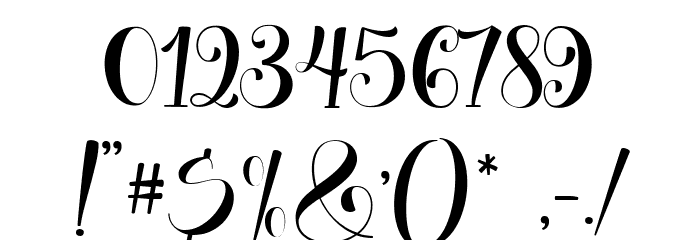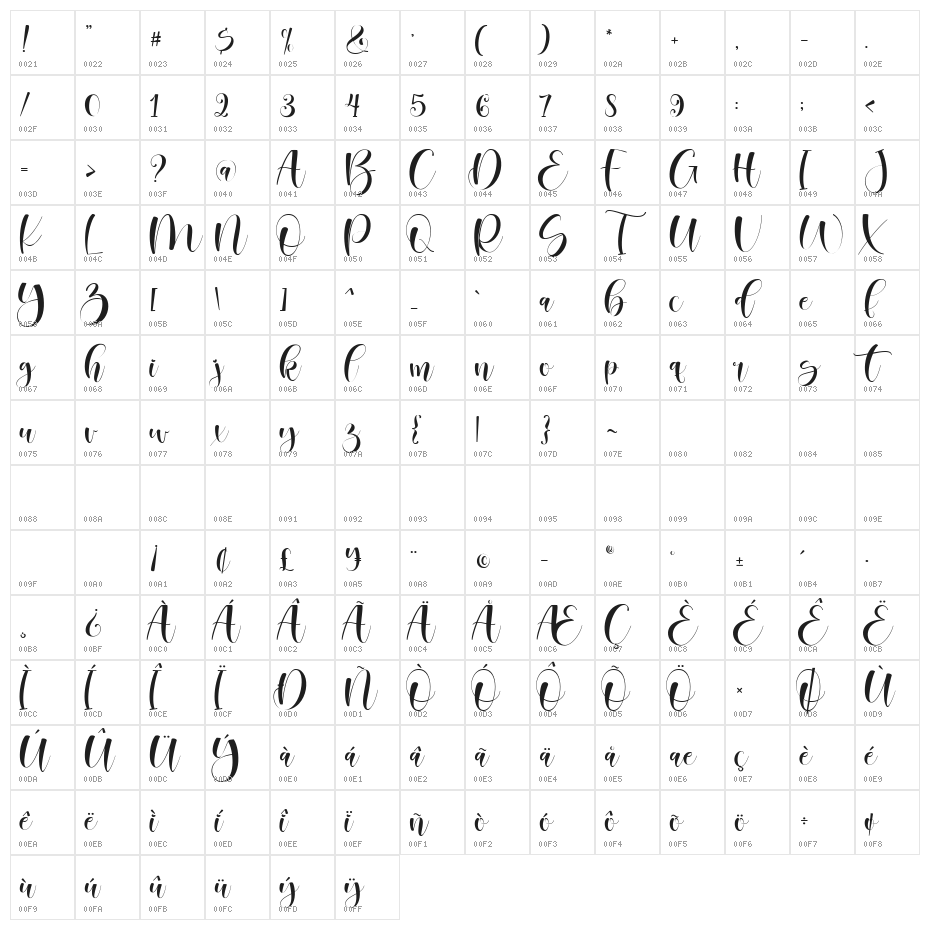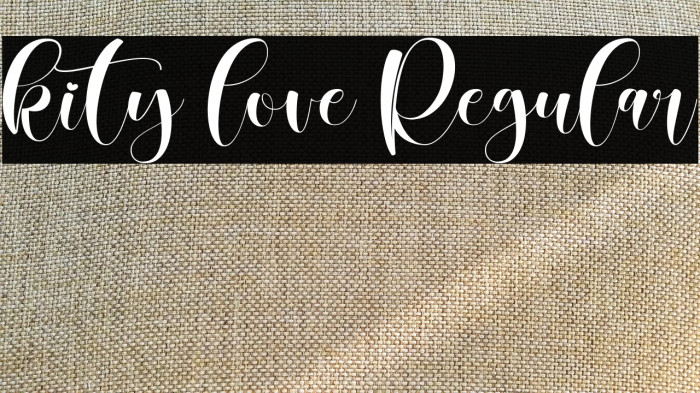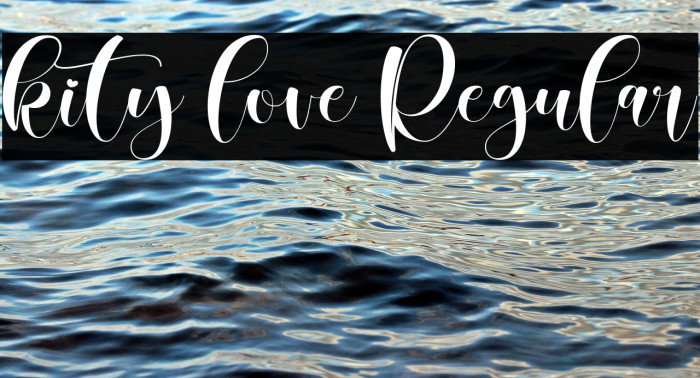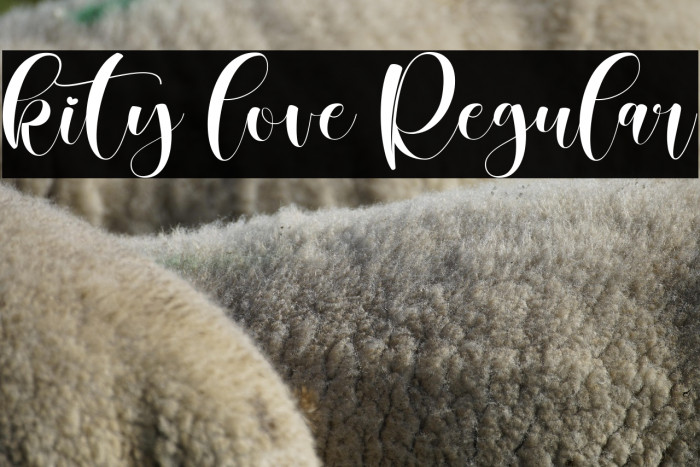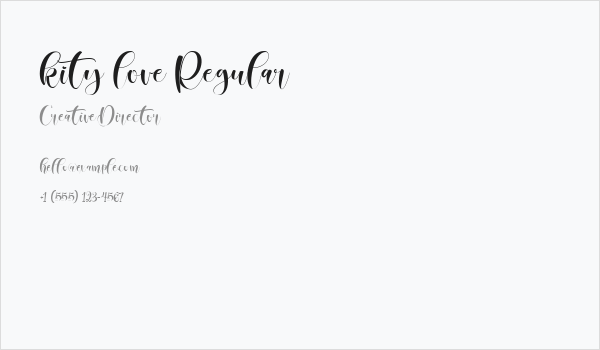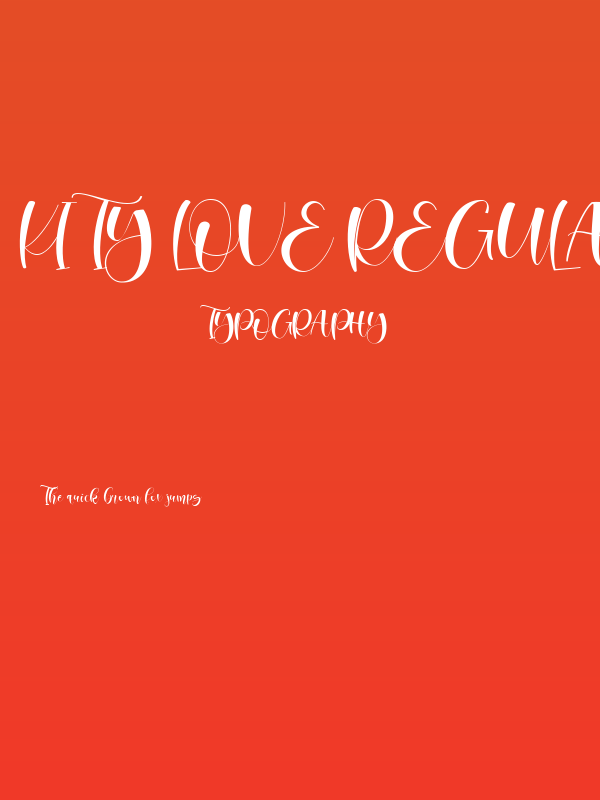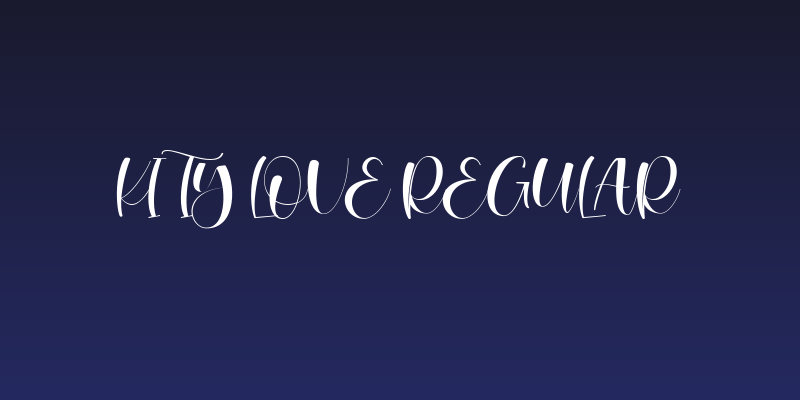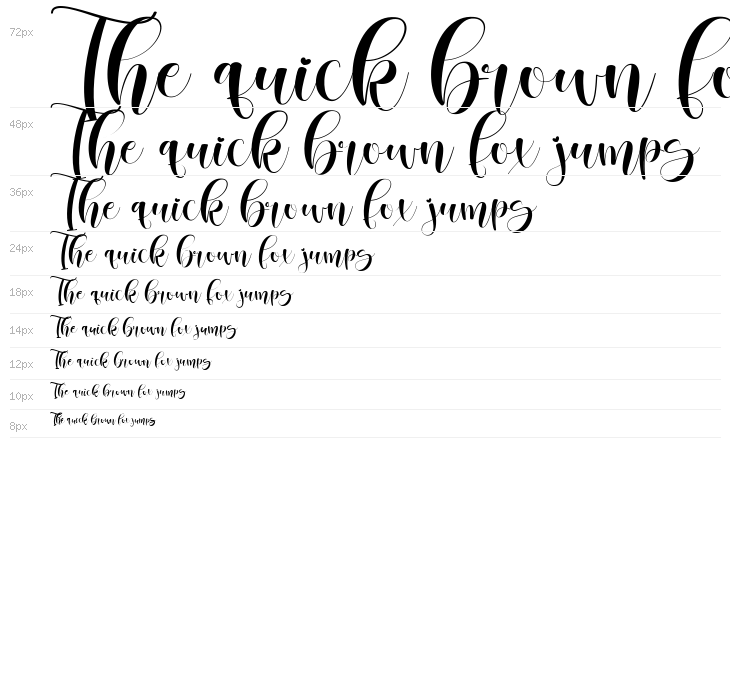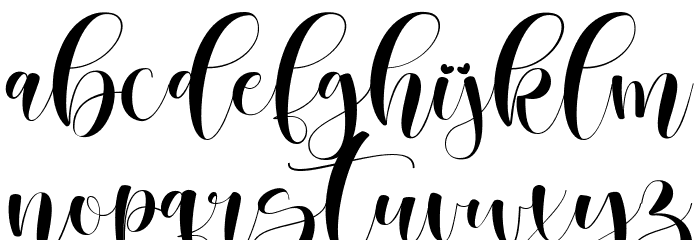
kity love Regular Font
kity love Regular Description
This font exudes elegance and charm with its flowing, cursive style. The letters are intricately designed with graceful loops and swirls, creating a sense of movement and fluidity. Each character is distinct, yet they all harmonize beautifully, making it ideal for projects that require a touch of sophistication. The uppercase letters are bold and prominent, while the lowercase letters maintain a delicate balance, enhancing readability. The numbers and special characters are crafted with the same attention to detail, ensuring consistency throughout the font. This font is perfect for adding a personal, handwritten feel to invitations, greeting cards, and branding materials.